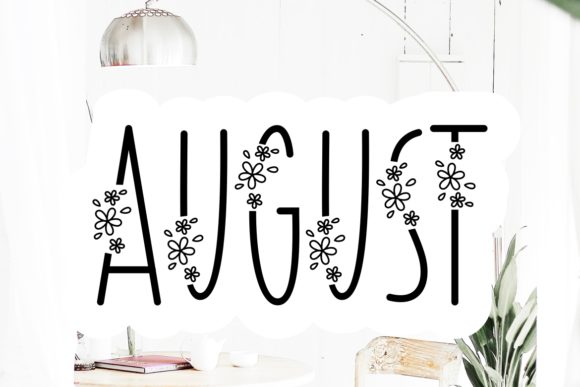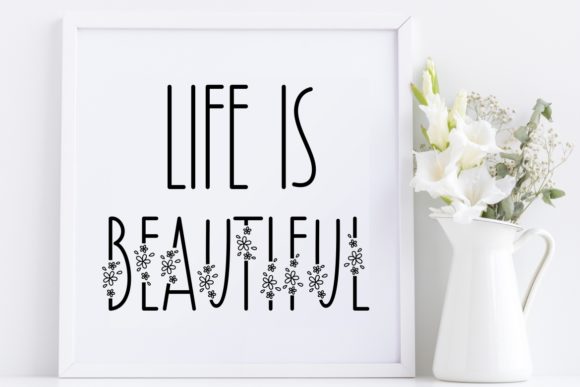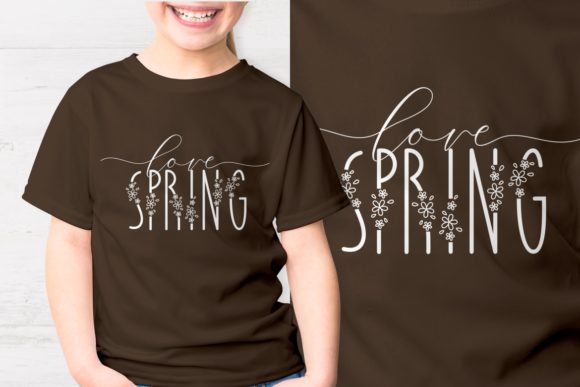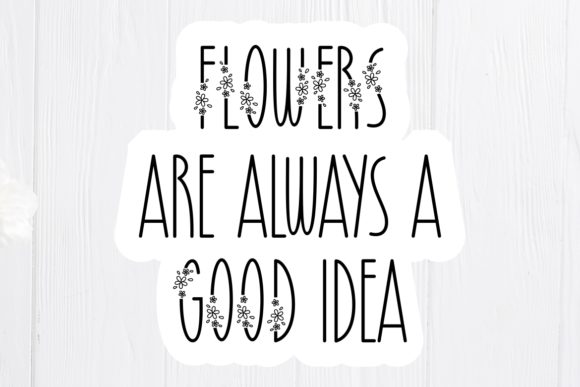
August Font
About August Font
August is a gorgeous monoline font. It features a flower-themed style that makes it perfect for all your spring crafting projects!